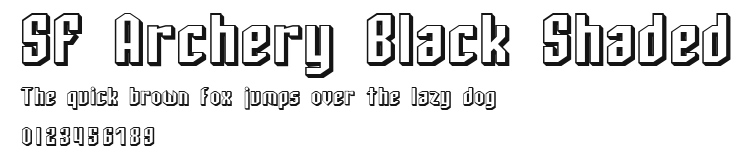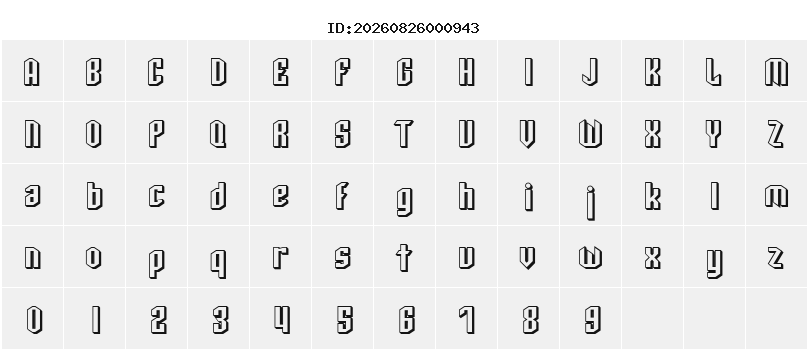
• Font Name: SF Archery Black Shaded
• Designer: ShyFonts Type Foundry
About SF Archery Black Shaded.ttf
SF Archery Black Shaded.ttf is a modern, elegant sans-serif font designed for ultimate readability and visual harmony. Perfect for branding, headlines, web design, and print materials.